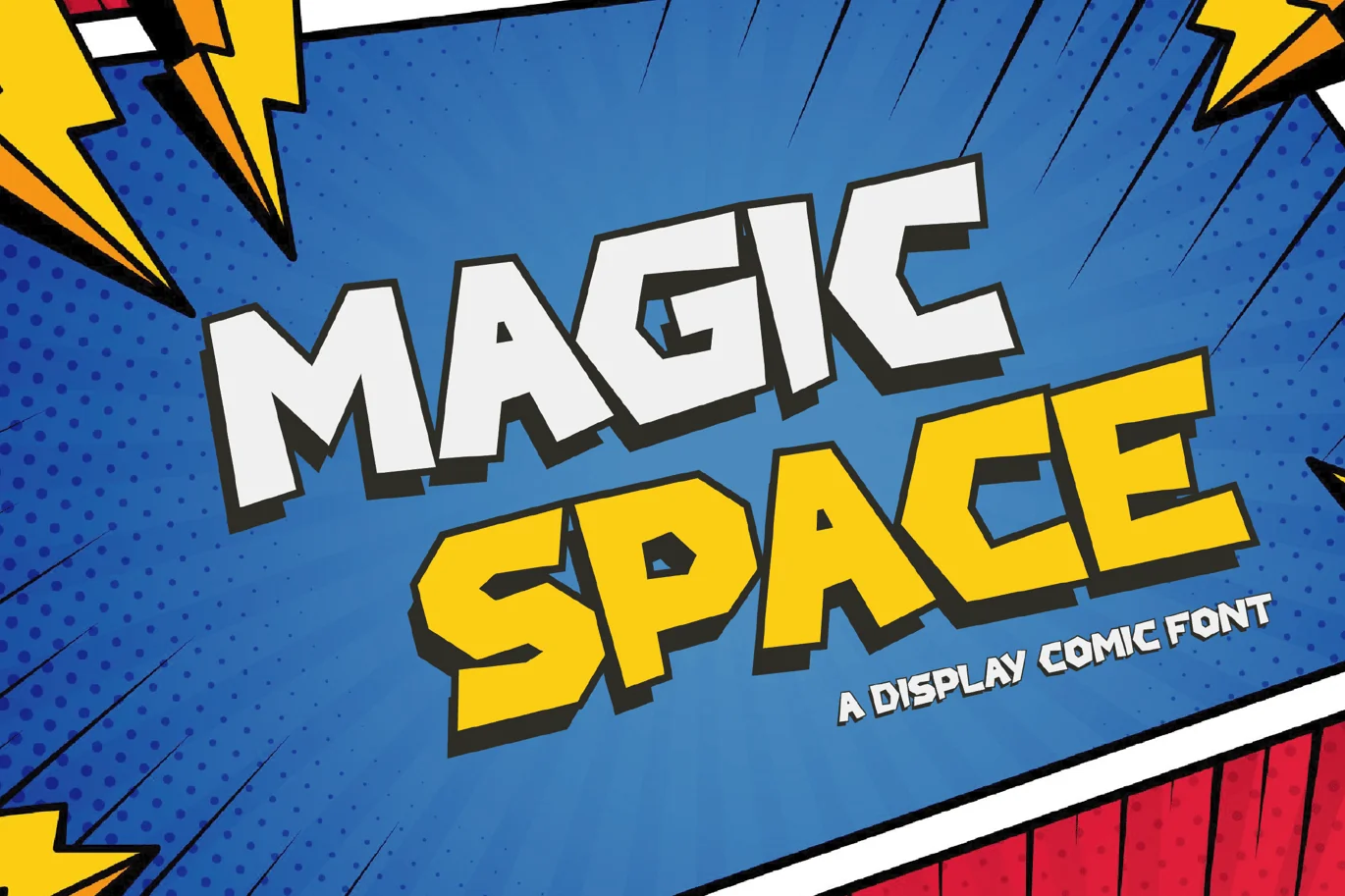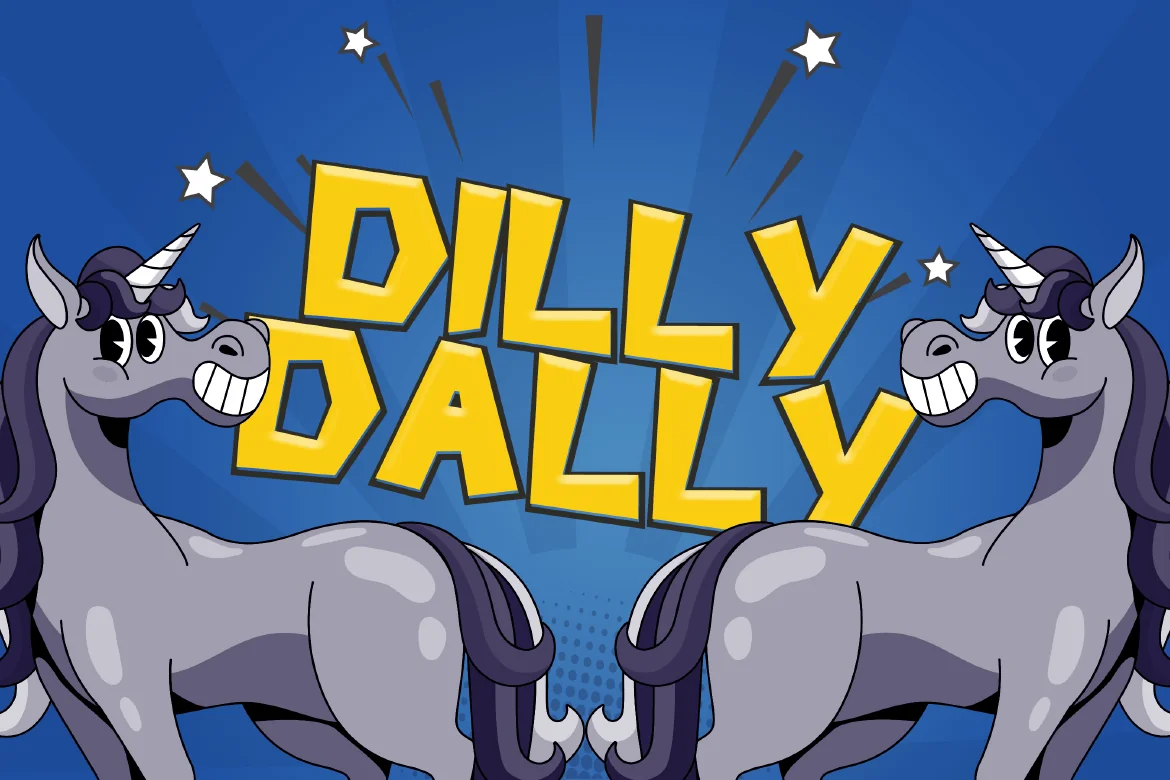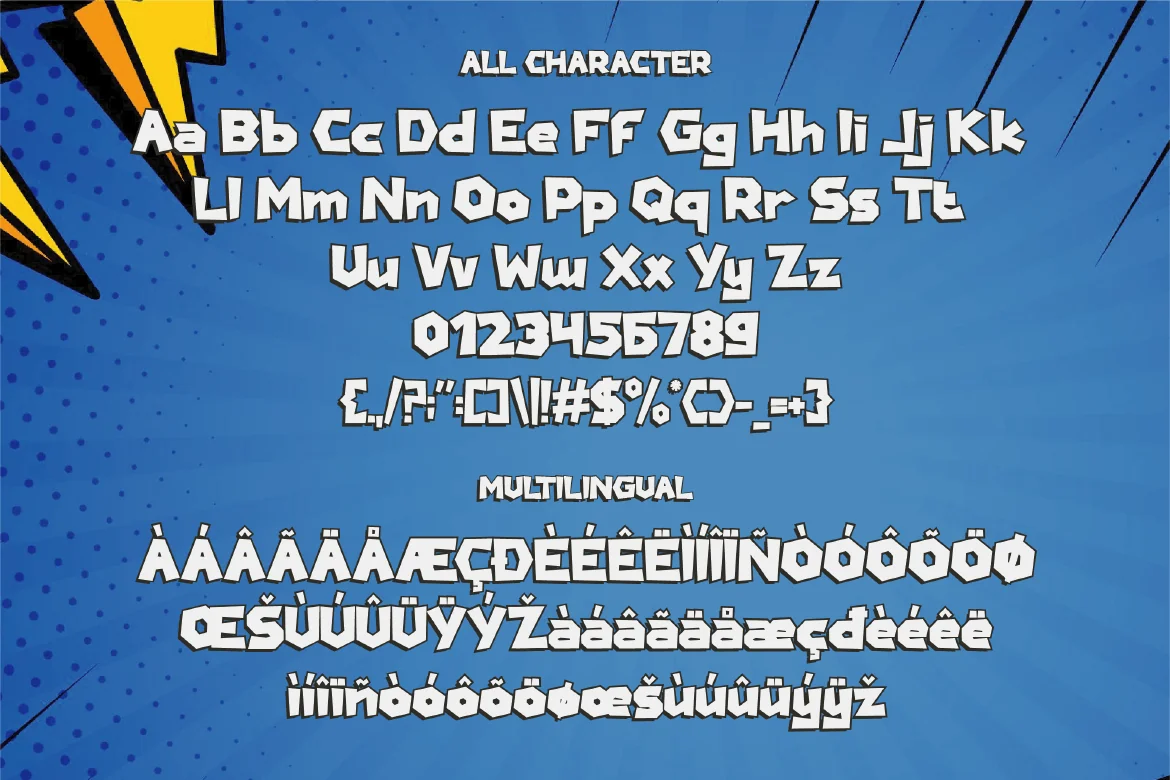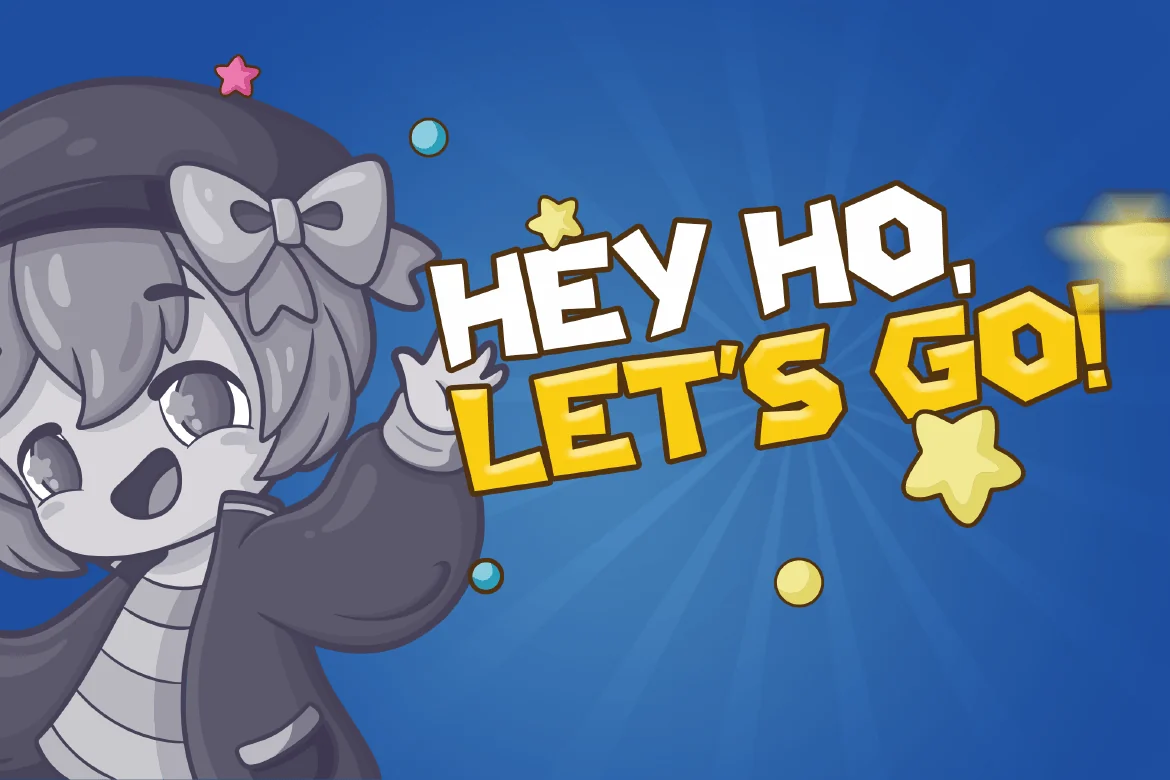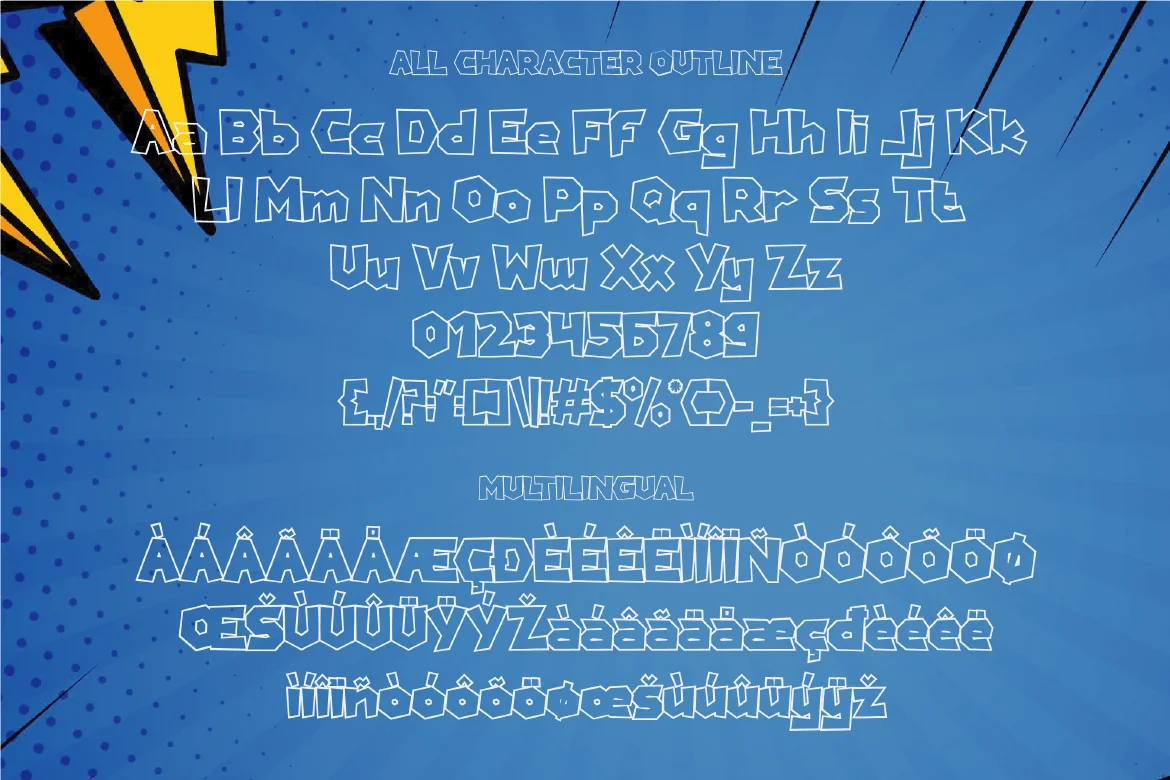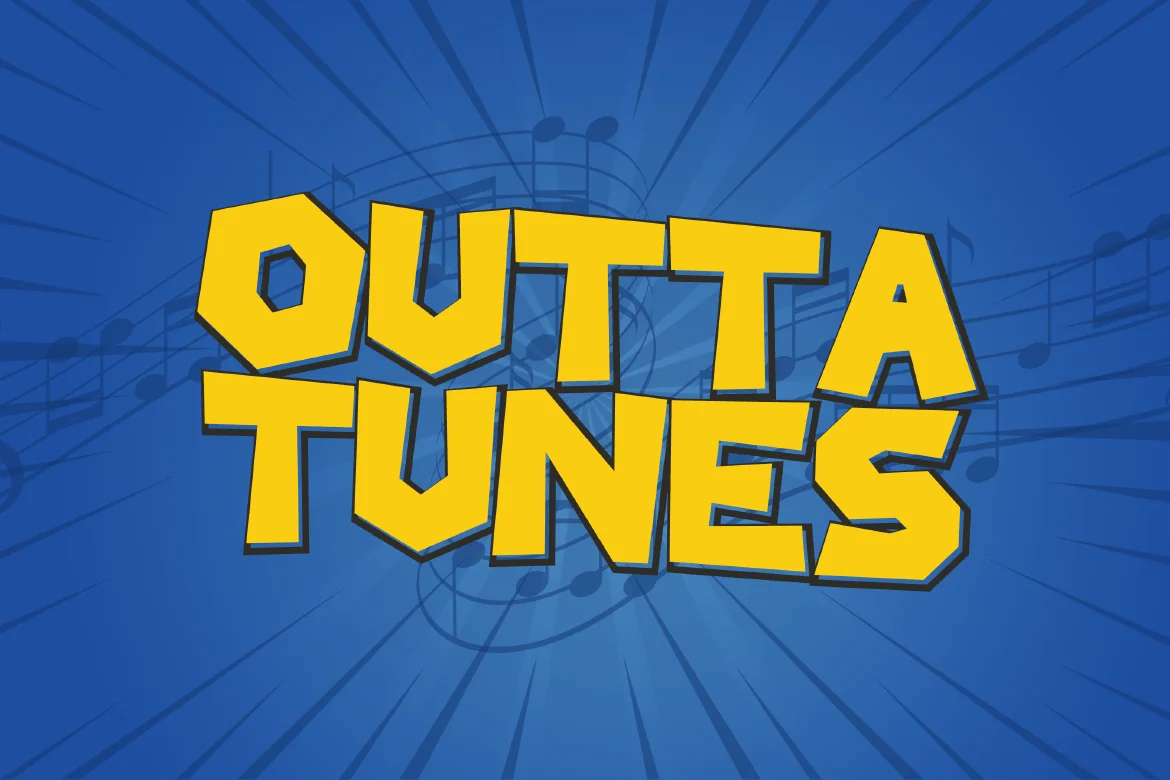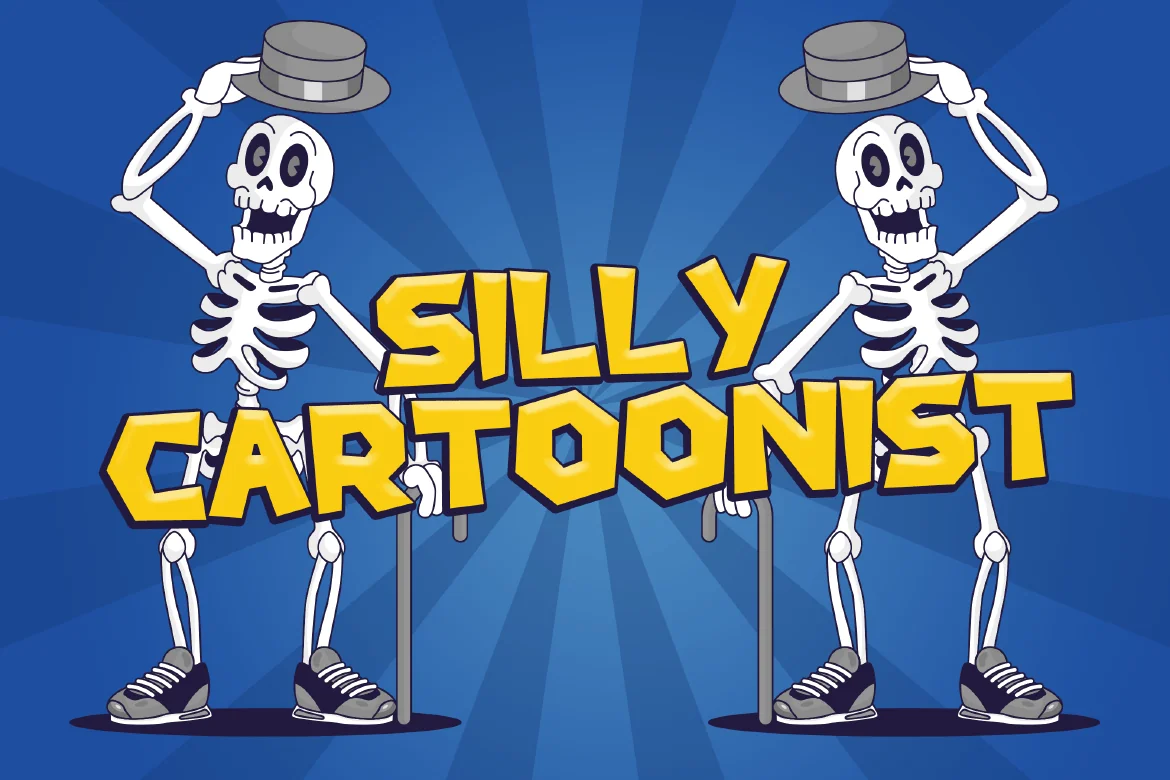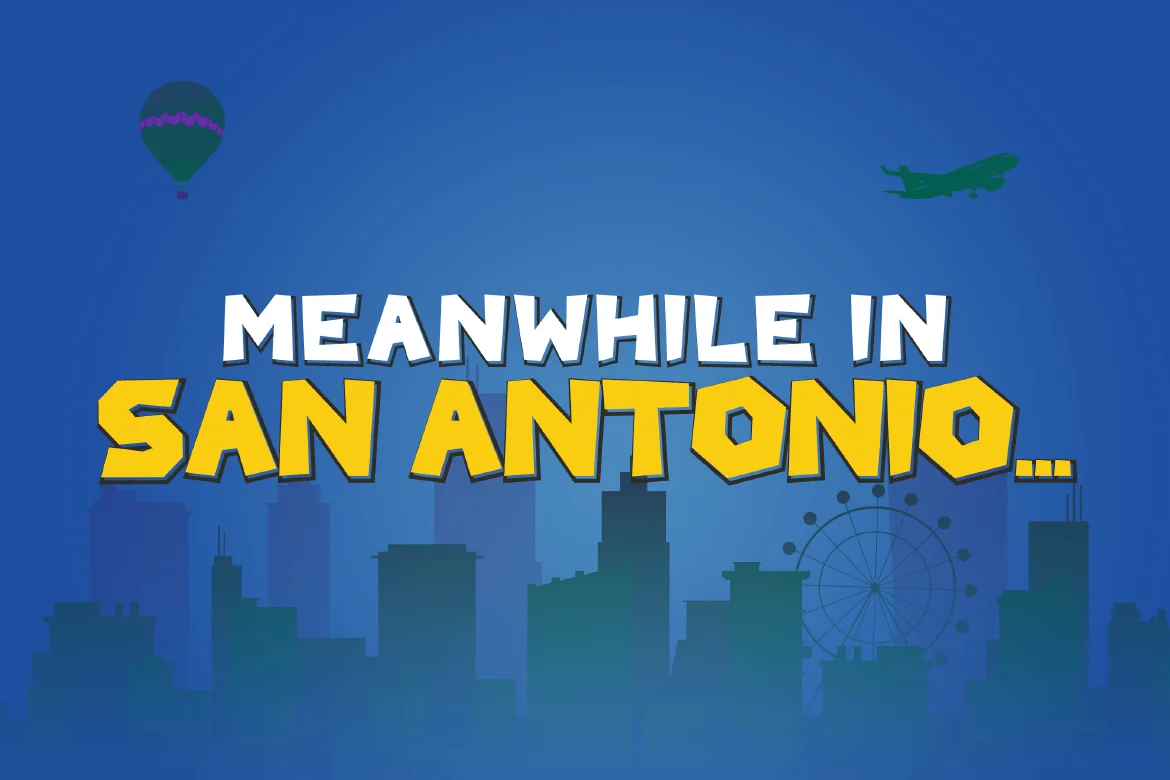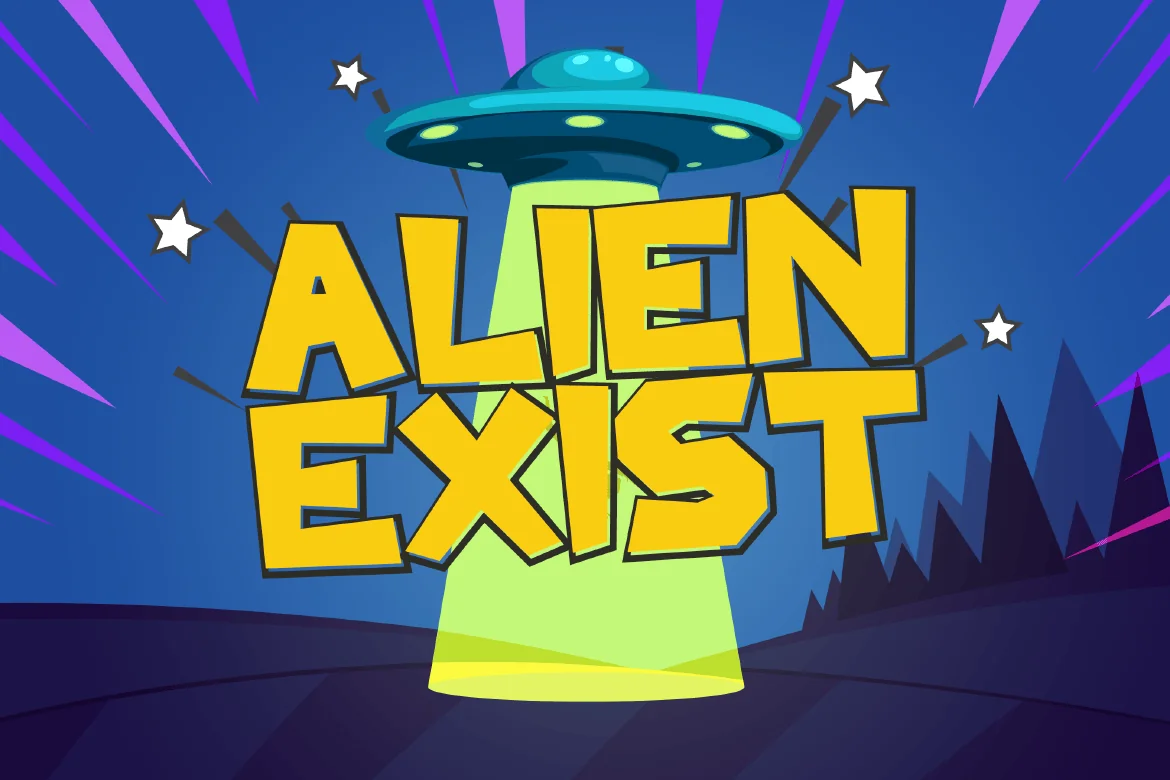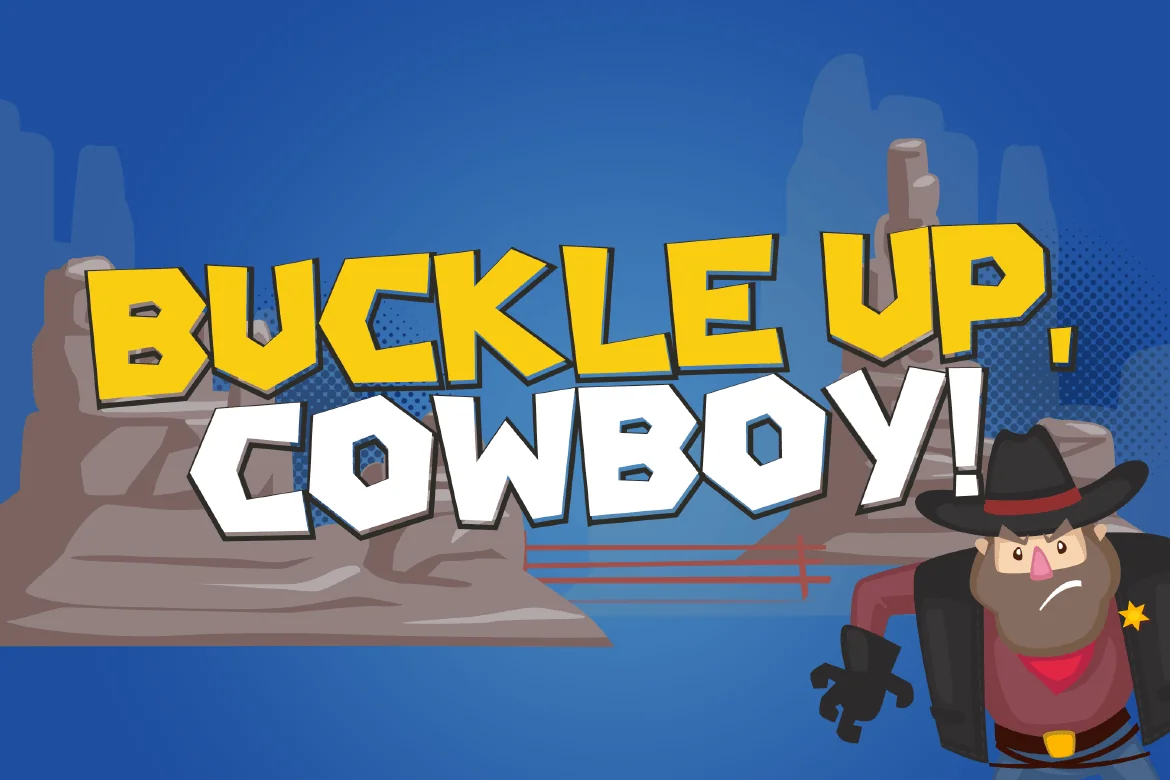
Magic Space – Display Comic Font
Introducing “Magic Space” – A Playful Comic Display Font. Embark on a whimsical journey through the cosmos with “Magic Space,” a captivating comic display font that adds an enchanting touch to your designs. With its delightful characters and playful aura, Magic Space brings a sense of wonder and imagination to your creative projects.
Alternate Character